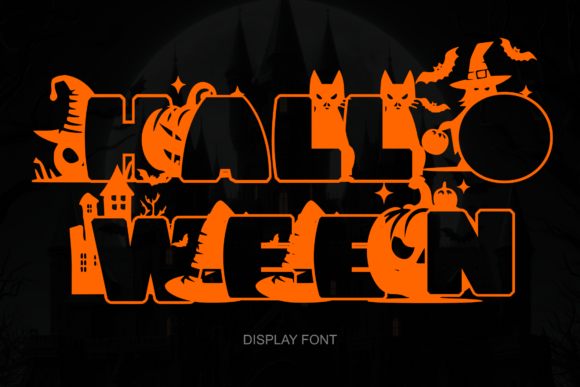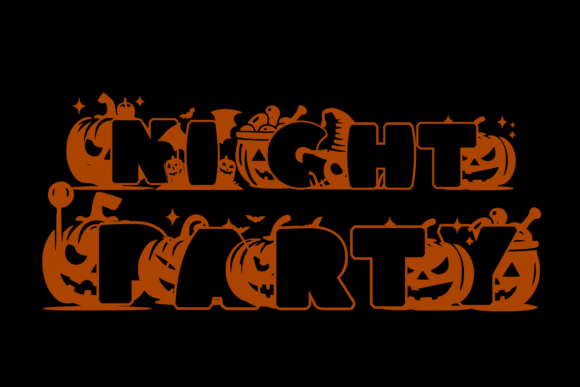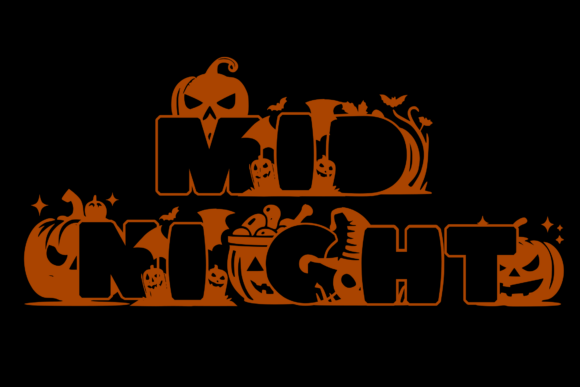
Unleash the Spooky Charm: Introducing the Halloween Font
As the spookiest time of the year approaches, designers and crafters are on the lookout for the perfect typography to add a touch of eerie elegance to their creations. Look no further than the Halloween font, a distinctively quirky display font designed to capture the whimsicality of Halloween figures. This one-of-a-kind fusion of style and spookiness is sure to elevate your designs to new heights, making them stand out in a crowded space.
The Story Behind the Font
The Halloween font is more than just a typography – it’s an experience. Crafted with meticulous attention to detail, this font is designed to evoke the nostalgia and playfulness of Halloween. Its unique blend of curly, swirly, and spooky elements makes it the perfect addition to any design project, from party invitations to social media graphics, and even merchandise.
What Sets Halloween Font Apart
- Distinctive Character: The Halloween font boasts a unique personality that sets it apart from more traditional fonts. Its quirky and whimsical design makes it perfect for creating eye-catching designs that demand attention.
- Versatility: Whether you’re designing for print or digital platforms, the Halloween font adapts seamlessly to various mediums, ensuring your message is conveyed in style.
- Ease of Use: With its user-friendly design, incorporating the Halloween font into your projects is a breeze, even for those with limited design experience.
Design Possibilities with Halloween Font
The Halloween font’s versatility knows no bounds, offering a wide range of design possibilities. Here are a few ideas to get you started:
- Party Invitations: Create spooktacular party invites that set the tone for a howling good time.
- Social Media Graphics: Elevate your social media presence with eye-catching graphics that showcase your creative side.
- Merchandise: Design unique merchandise, such as t-shirts, mugs, and trick-or-treat bags, that are sure to delight both kids and adults.
- Signage: Use the Halloween font to create attention-grabbing signs for your storefront, haunted house, or fall festival.
Tips for Using Halloween Font Effectively
To get the most out of the Halloween font, follow these expert tips:
- Mix and Match: Combine the Halloween font with other typography to create a unique visual hierarchy.
- Play with Colors: Experiment with a range of colors, from traditional orange and black to bold purples and greens.
- Add Texture: Incorporate textures and patterns to give your designs an extra layer of depth and interest.
The Halloween font is more than just a typography – it’s a game-changer. With its unique blend of whimsy and spookiness, this font is sure to elevate your designs and make them stand out in a crowded space. Whether you’re a designer, crafter, or simply a Halloween enthusiast, the Halloween font is the perfect addition to your creative toolkit. So why wait? Unleash the spooky charm and take your designs to new heights with the Halloween font.